Top 12+ Best Decorative Fonts For Designers in 2023
12+ Best Decorative Fonts For Designers in 2023. The right font combination can make your site stand out from the crowd. Whether you want to design a trendy logo, creative poster title, header for a website, or even a stylish T-shirt design, choosing an attractive and impressive decorative font to attract customers is an extremely necessary thing. We handpicked a collection of the best decorative fonts to show you how useful and creative decorative fonts can really be. You can download any of these premium fonts for a single price, and there are plenty of free fonts in there as well!
Decorative Font - Granty
Granty is Decorative font that includes uppercase letters, lowercase letters, numerals, ligatures & punctuation. this font can also be combined with other fonts like serif, script and handwritten. This font is suitable for graphic design needs such as: magazines, posters, branding, apparel, movie headlines etc..
Maquire Decorative Font
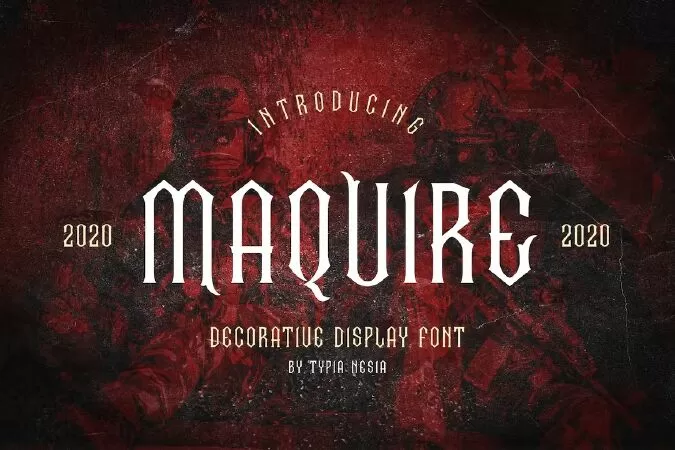
Maquire Decorative - Game Display Font
Maquire font is perfect for your up coming projects. Such as logo branding, game, fantasy novel, movie, editorial design, stationery design, sport design, blog design, modern advertising design, card invitation, art quote, home decor, book/cover title, special events and any more.
Seulanga Decorative Font
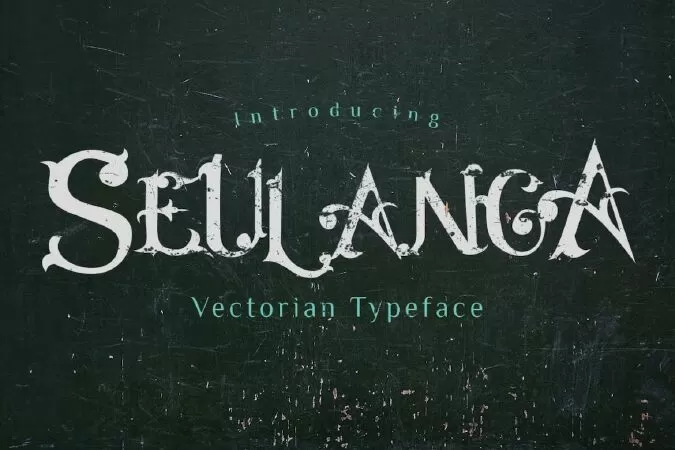
Introducing Seulanga inspired by the flowers that exist in Aceh and some combination of old style font vectorian. Seulanga is multi-purpose and ready to make a statement by adding an elegant and unique talent for the next design project. Seulanga can be used for various purposes such as posters, logos, t-shirts, signage, businnes card, magazines, book covers, wedding invitations, greeting cards etc.
Cambridge - Bold Decorative Gothic Font
Introducing Cambridge font. Are you looking for a bold handlettering decorative font that has a medieval gothic feeling? We can help! Try to download our Cambridge font. Suitable to use for any occasion such as book, logo, print, game, event, music, invitation and others :)
Monde – Fun Decorative Font
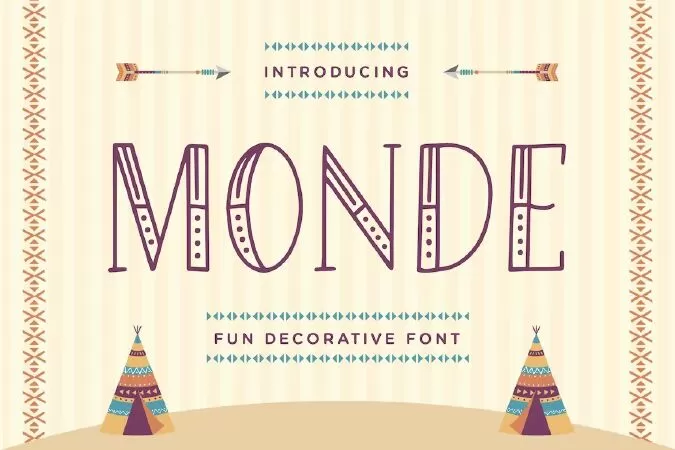
Monde is a decorative display font. It will turn any design project into a stand out. Monde font is really great for a restaurant menu, business branding, quotes, headings, birthday invitations, posters, and many others.